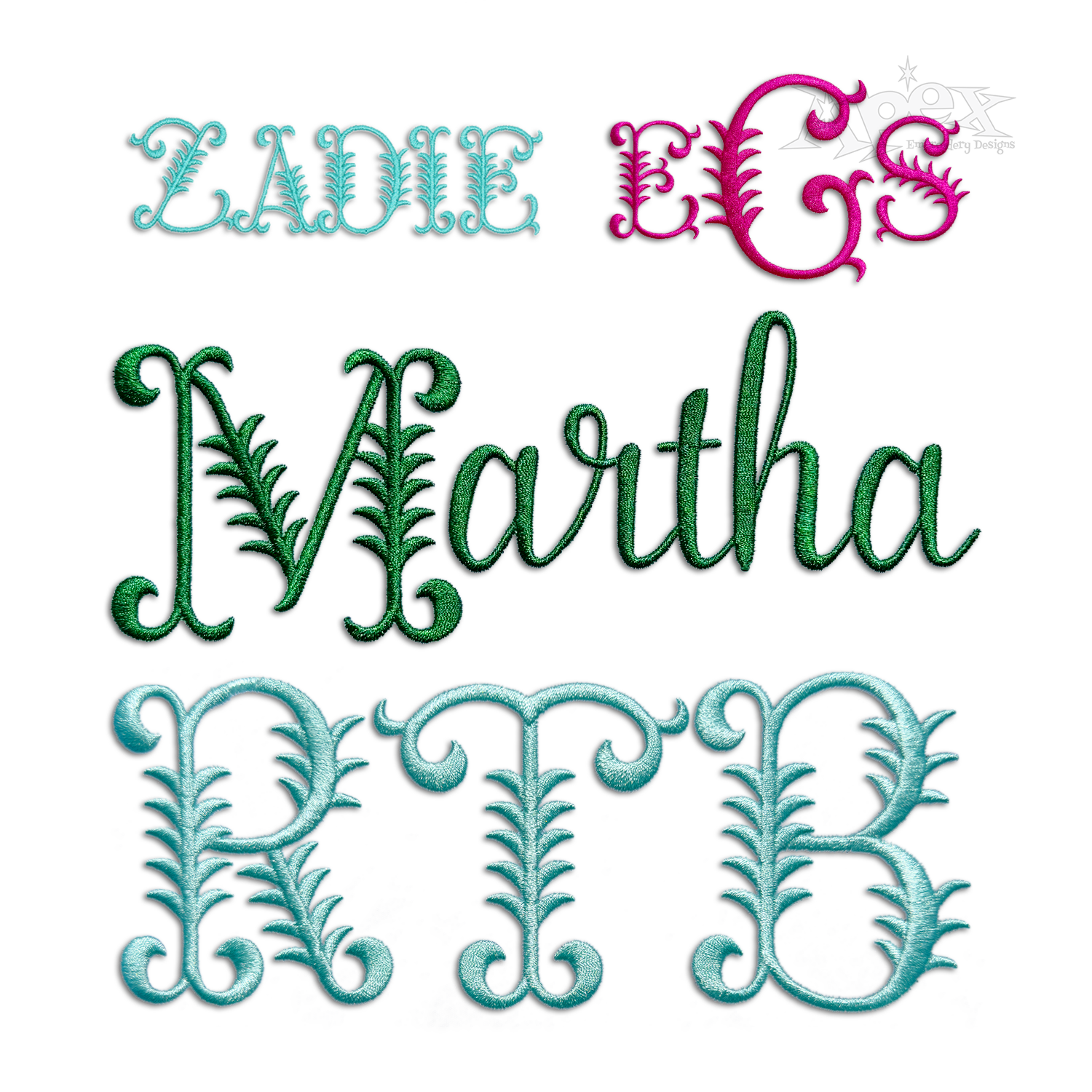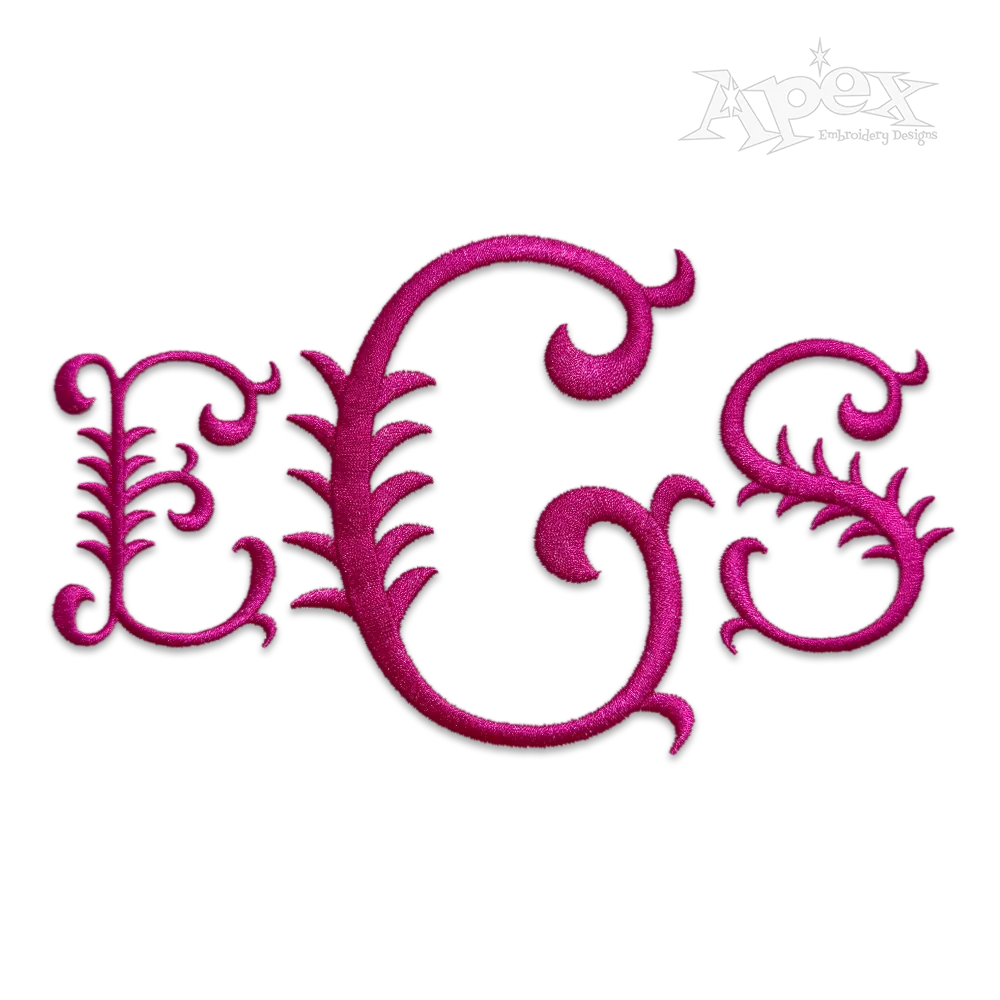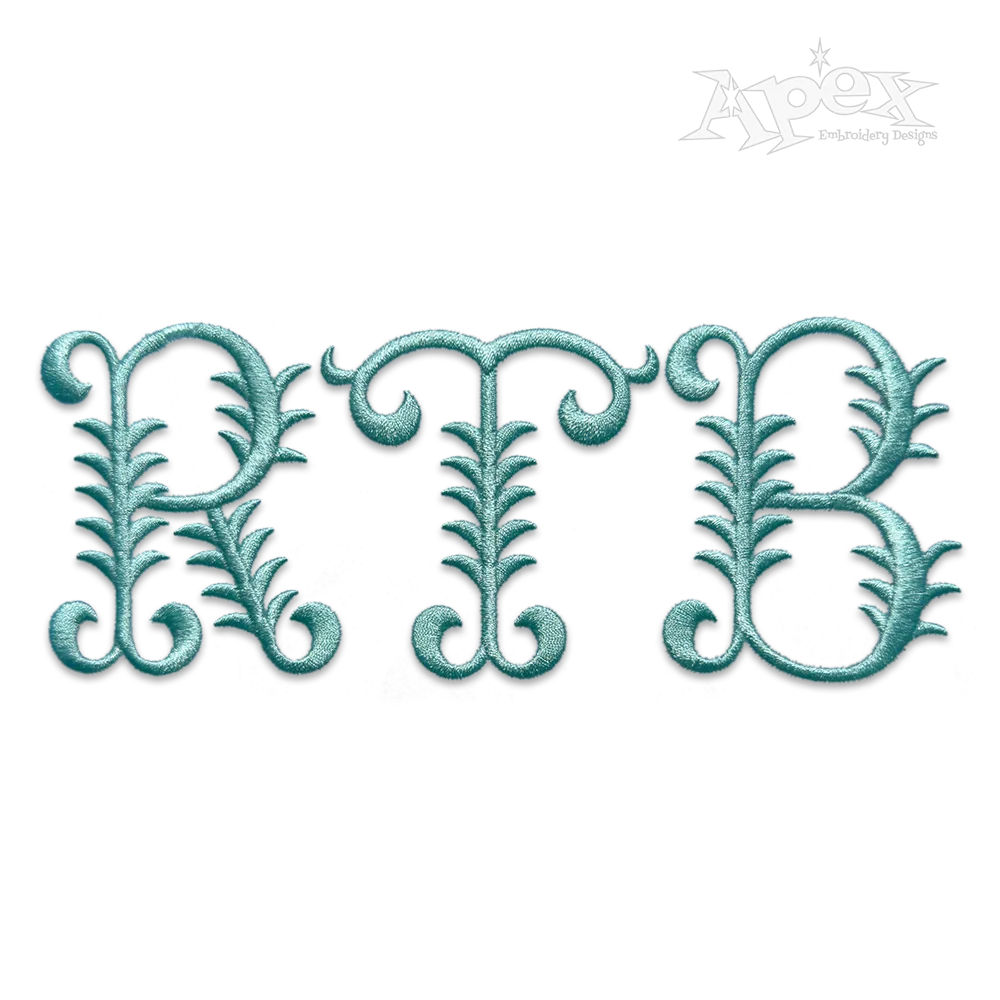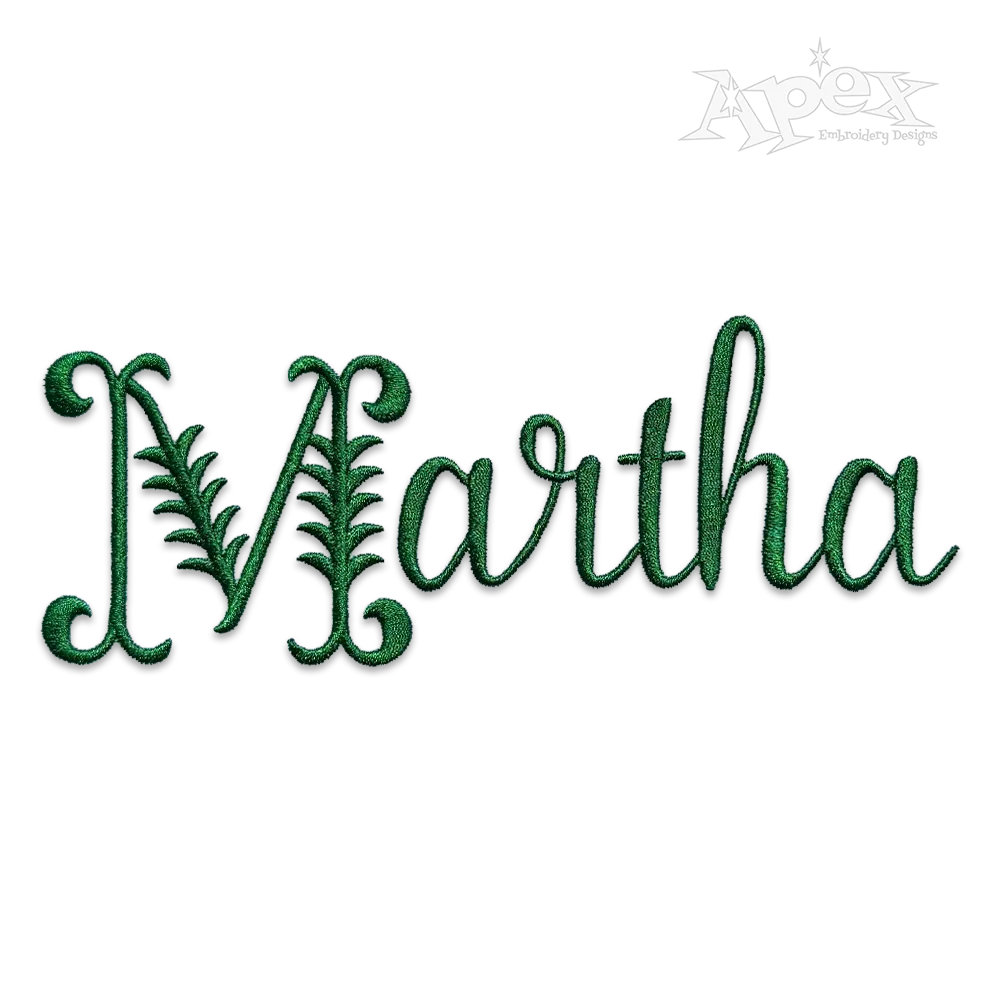
Zadie Embroidery Font
There is an undeniable majesty in a singular, well-crafted initial—a sculptural presence that anchors fabric to personal history. When digitizing the Zadie Embroidery Font, our studio drew inspiration from classic couture monograms and mid-century architectural silhouettes, translating sweeping confidence into every needle point. Zadie is an ode to understated grandeur, crafted exclusively in statement capitals that command attention across heirloom linens, personalized gifts, and bespoke apparel with effortless sophistication.
The Zadie Embroidery Font is curated specifically for striking standalone initials and monogramming applications. Please note that this font is designed strictly as an uppercase collection; lowercase letters are not included.
Project Ideas for Zadie
Designed to transform everyday textiles into bespoke treasures, the Zadie alphabet brings refined glamour to a wide array of sewing and embroidery projects:
- Luxury Table Linens: Stitch crisp 1.5-inch single-letter monograms onto mitered-corner linen cocktail napkins or a grand dinner runner.
- Bespoke Resort Wear: Adorn structured linen button-downs, light cardigans, or terry pool cabana shirts with a tonal or contrasting crest initial.
- Heirloom Bedding & Boudoir Pillows: Center a 3.5-inch capital on tailored percale pillow shams or the turn-back edge of a crisp duvet cover.
- Bridal Party Gifting: Personalize silken bridal morning robes, velvet vanity bags, and plush slippers for unforgettable wedding celebrations.
- Custom Travel Accessories: Stitch high-contrast initials onto heavy canvas boat totes, tennis bags, or travel packing envelopes.
To showcase the distinctive silhouette and flowing satin work of the Zadie alphabet, consider these classic placement techniques:
- Diagonal Corner: Position the 1.5-inch initial approximately 1.5 to 2 inches up from the lower right corner on table napkins, handkerchiefs, and tea towels for an authentic atelier finish.
- Center Chest & Pocket Top: Center the 2.5-inch letter on sweaters, robes, or denim jackets, or place the 1.5-inch size floating just above a standard chest pocket.
- Focal Center: Anchor square accent cushions, framed embroidery keepsakes, or holiday stockings by centering the dramatic 3.5-inch capital letter directly in the sweet spot of the design field.
Zadie Craft & Letterform Details
Every glyph in the Zadie Embroidery Font has been manually digitized with meticulous attention to stitch direction, entry points, and structural longevity. Rather than relying on automated conversions, our digitizers hand-sculpted the satin stitch columns to preserve the fluid taper and bold presence of each stroke. Strategic underlay pathways ensure reliable stability across varied substrates, from dense wovens to supple knits, without puckering or distortion.
The deliberate omission of lowercase letters allowed our team to optimize each capital letter as an independent piece of textile art. Graceful curve transitions melt into crisp terminal stops, while the satin density is carefully calibrated to produce high luster and light reflection across your favorite embroidery threads. Zadie delivers a clean, professional stitch-out that honors the timeless legacy of custom monogramming.